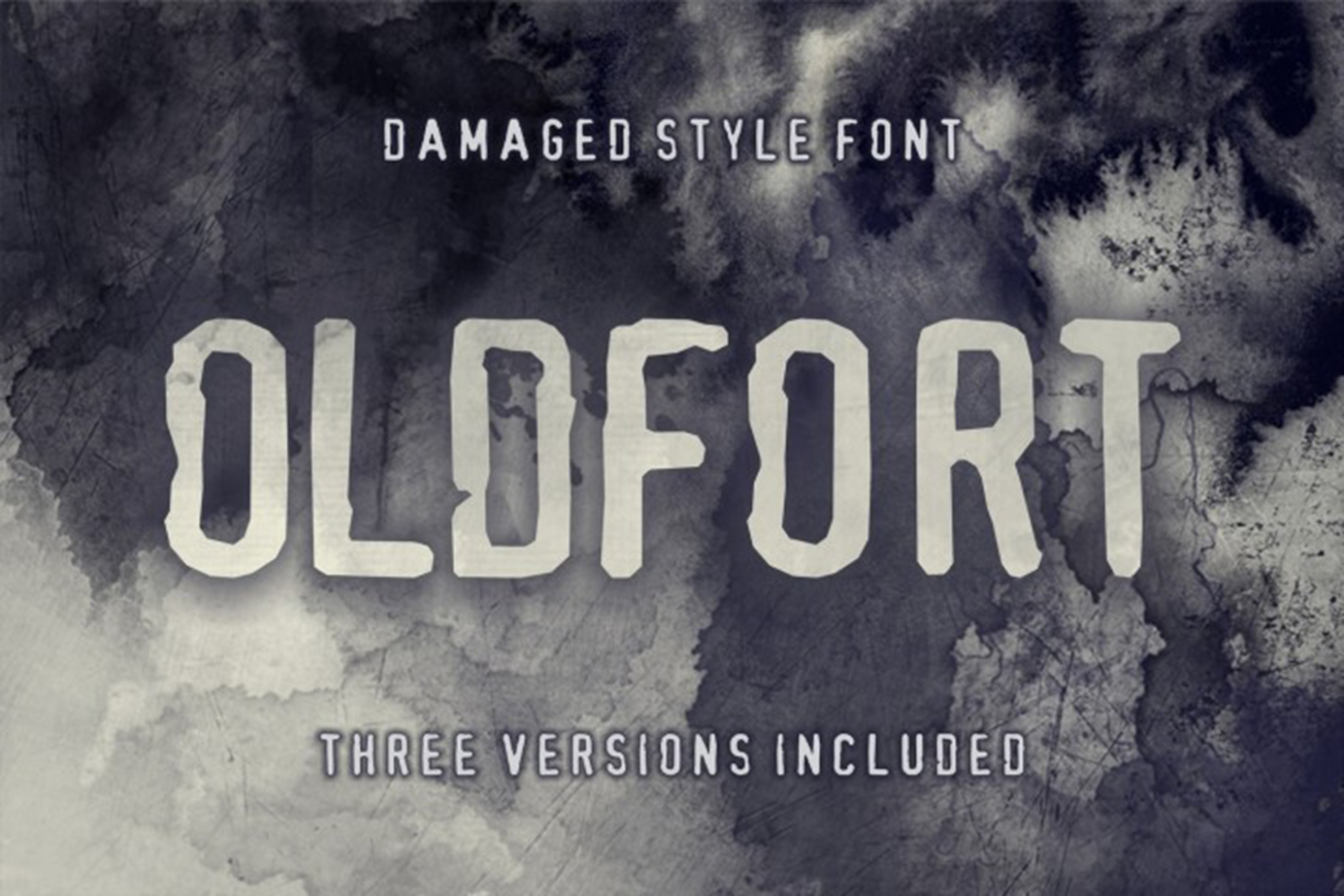
Old Fort Damaged Style Display Font
OldFort is the font within Damaged family of fonts. As name sounds it is come from historical facts of damaged fortified walls, buildings and towers. This Stylized font is looks like fort was under attack but resist and now is alive. Fort was damaged a little bit but stays. It has tough design with great attitude to scratched corner and shapes. Powerful usage of this font is expected in the meaning of an excellence in presentation of any design work. Typeface OldFort is for highly visible and trend items. OldFort © 2018